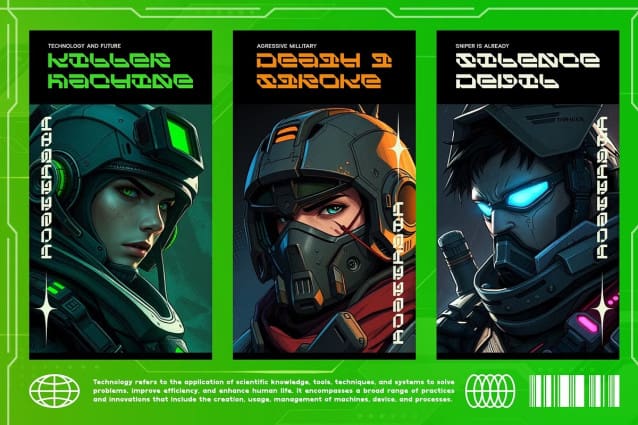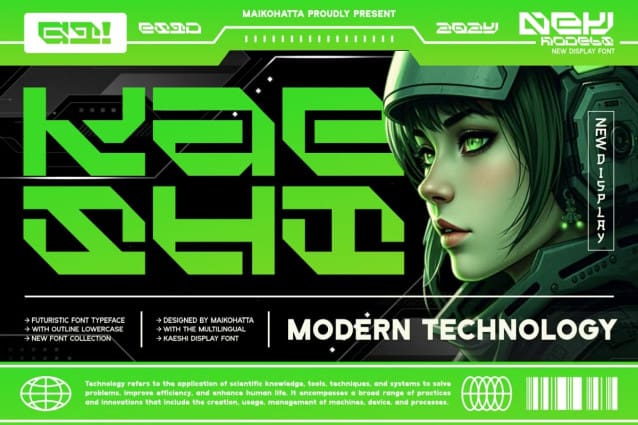
Kaeshi Techno Font
Kaeshi Techno font is a futuristic typeface inspired by cutting-edge technology. This font reflects the digital age and technological advancements, bringing a sense of modernity, innovation, and energy to any design. With sharp lines, geometric letterforms, and futuristic elements, this font is suitable for projects related to technology, robotics, science, and modern lifestyle. This font is often found in logos, website designs, posters, and other creative projects that require a futuristic touch.